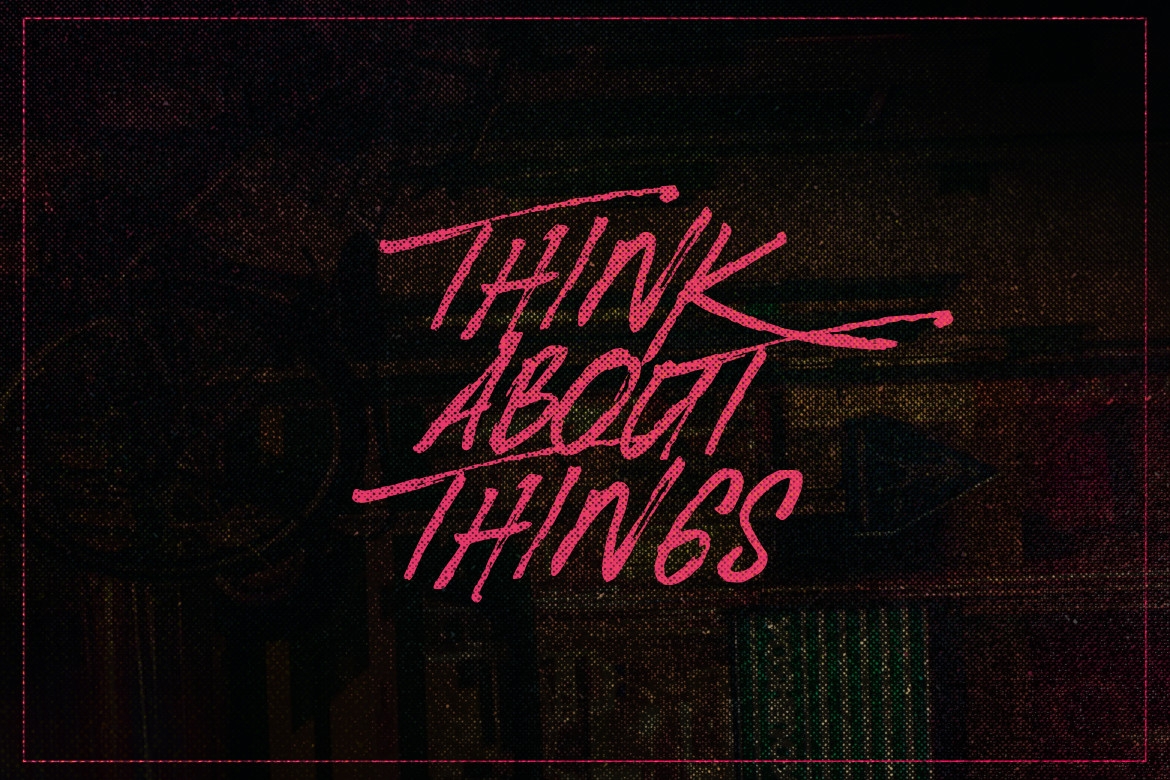
Royal Twins Brush Font
Royal Twins Brush Font is extensively famous for its bold-italic characteristics. This typeface falls into the class of the easy fonts and it is preset inside google fonts.
The ones are hand-drawn fonts that during truth supply off a quicksand font to your duties. It is also one of the most used fonts within the google fonts.
Style of Royal Twins Brush Font Free
The majority of the designers changed into using it for his or her very non-public structures. And a few others are taking it as a concept for making new typefaces.
It’s far similar to the royal vintage style font. Add it for your fonts series and supply a real personal contact in your obligations. It’s a splendid typeface designed via the studio.